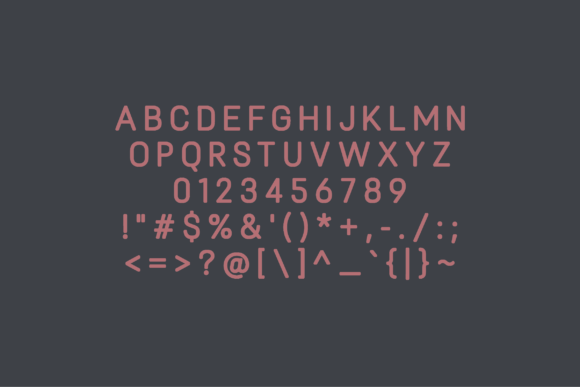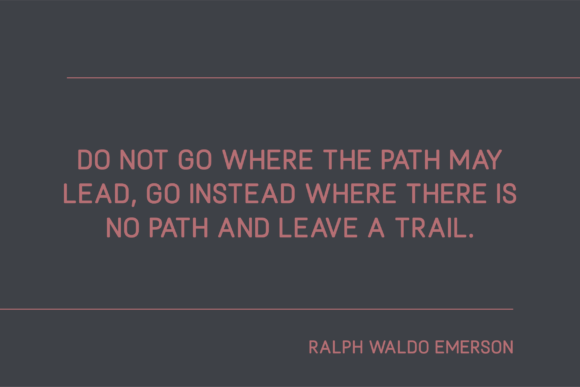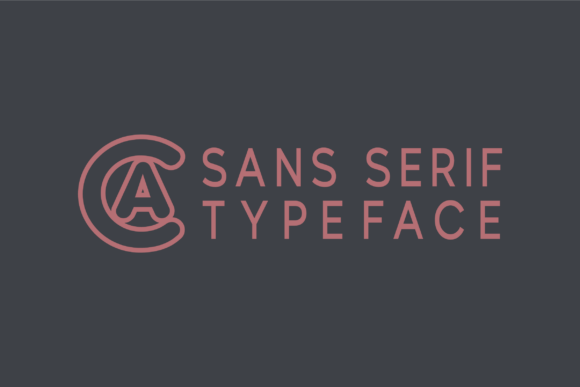
Frostberry Font: Elevate Your Designs with a Sleek and Stylish Sans-Serif
In the world of typography, a font can make or break a design. For designers and crafters looking for a modern and versatile typeface, Frostberry Font is an excellent choice. This sleek and stylish sans-serif font is designed for contemporary digital and print applications, offering a perfect blend of precision and softness.
Frostberry Font boasts sharp geometry, clean lines, and subtle rounded corners, making it an ideal choice for a wide range of design projects. The font features a complete uppercase character set, numerals, and essential punctuation, ensuring that you have everything you need to create stunning designs. Its slightly condensed form enhances readability while maximizing space, making it perfect for minimalist or tech-focused designs.
- Complete Uppercase Character Set: Frostberry Font features a comprehensive set of uppercase characters, allowing you to create bold and eye-catching designs.
- Numerals and Essential Punctuation: The font includes numerals and essential punctuation marks, making it suitable for a variety of design applications.
- Sleek and Stylish Design: Frostberry’s sharp geometry and clean lines give it a modern and sophisticated look, perfect for branding, headlines, and UI design.
- Subtle Rounded Corners: The font’s subtle rounded corners add a touch of softness, making it suitable for designs that require a hint of warmth.
- Versatile and Adaptable: Frostberry Font works beautifully across a wide range of styles and formats, from digital ads and websites to posters and modern logos.
Applications and Use Cases
Frostberry Font is an incredibly versatile typeface that can be used in various design applications, including:
- Branding: Create a lasting impression with Frostberry’s bold and stylish design, perfect for logos, business cards, and brand guidelines.
- Headlines and Titles: Use Frostberry to create attention-grabbing headlines and titles that demand attention.
- UI Design: Frostberry’s clean lines and subtle rounded corners make it an excellent choice for user interface design, ensuring a seamless user experience.
- Product Packaging: Add a touch of modern sophistication to your product packaging with Frostberry’s sleek and stylish design.
- Editorial Layouts: Use Frostberry to create stunning editorial layouts that showcase your content in a clear and elegant manner.
Why Choose Frostberry Font?
With so many fonts available, why choose Frostberry? Here are a few compelling reasons:
- Unique Blend of Precision and Softness: Frostberry’s sharp geometry and subtle rounded corners create a unique and captivating design that sets it apart from other fonts.
- Maximizes Space: The font’s slightly condensed form ensures that you can fit more content in a smaller space, making it perfect for designs with limited real estate.
- Contemporary Edge: Frostberry brings a modern and stylish edge to your designs, ensuring that they look fresh and up-to-date.
Frostberry Font is an exceptional sans-serif typeface that offers a perfect blend of precision and softness. Its sleek and stylish design, versatility, and adaptability make it an excellent choice for designers and crafters looking to elevate their designs. Whether you’re working on branding, headlines, UI design, product packaging, or editorial layouts, Frostberry Font is sure to impress. With its comprehensive character set, subtle rounded corners, and modern aesthetic, Frostberry is the perfect addition to your design toolkit.